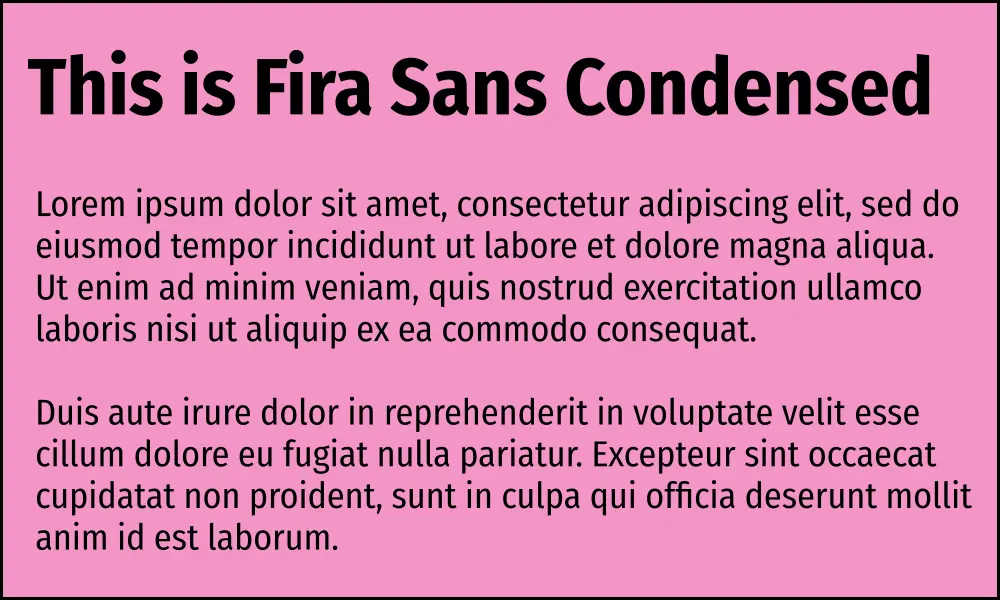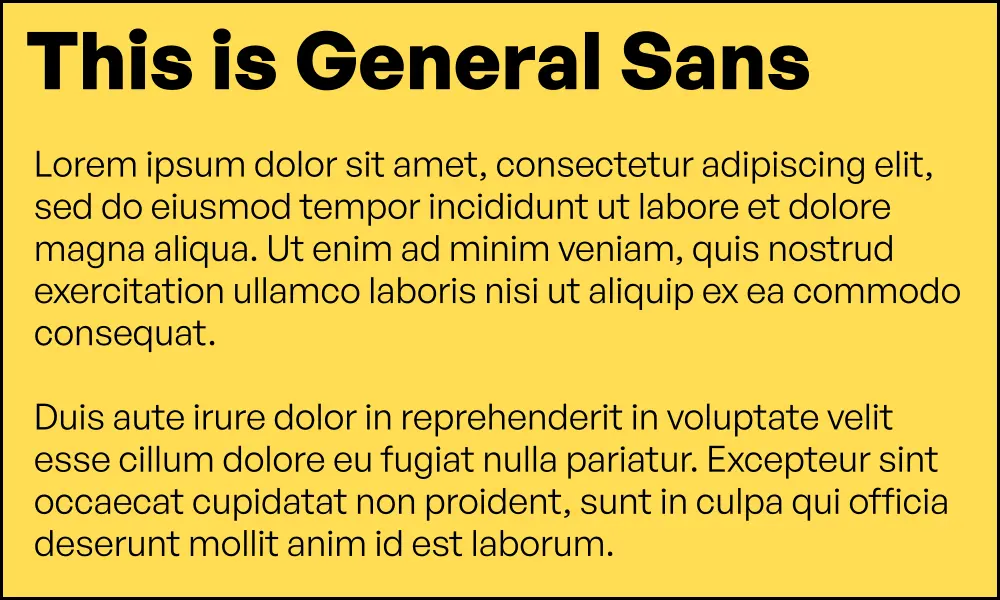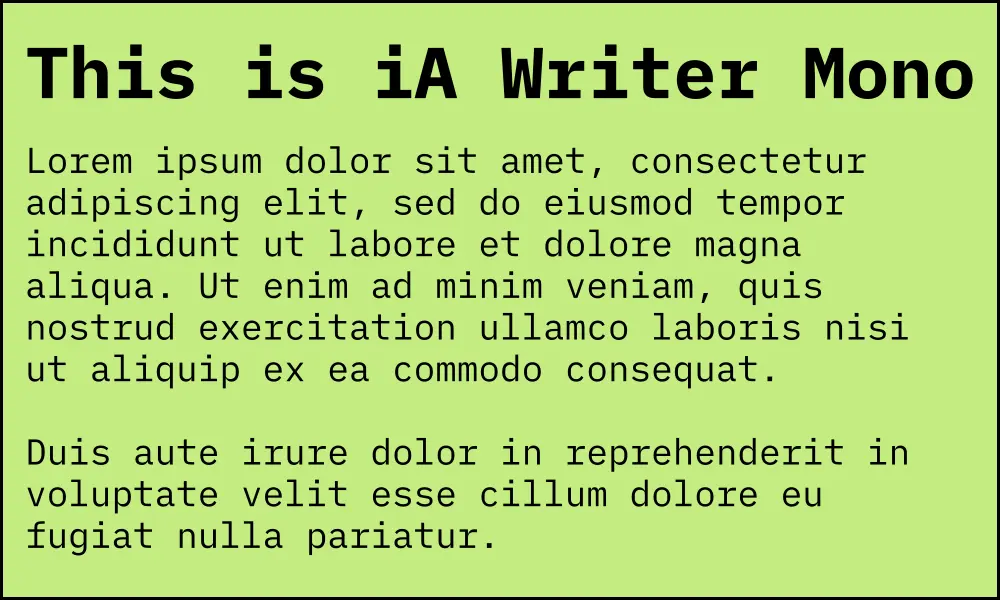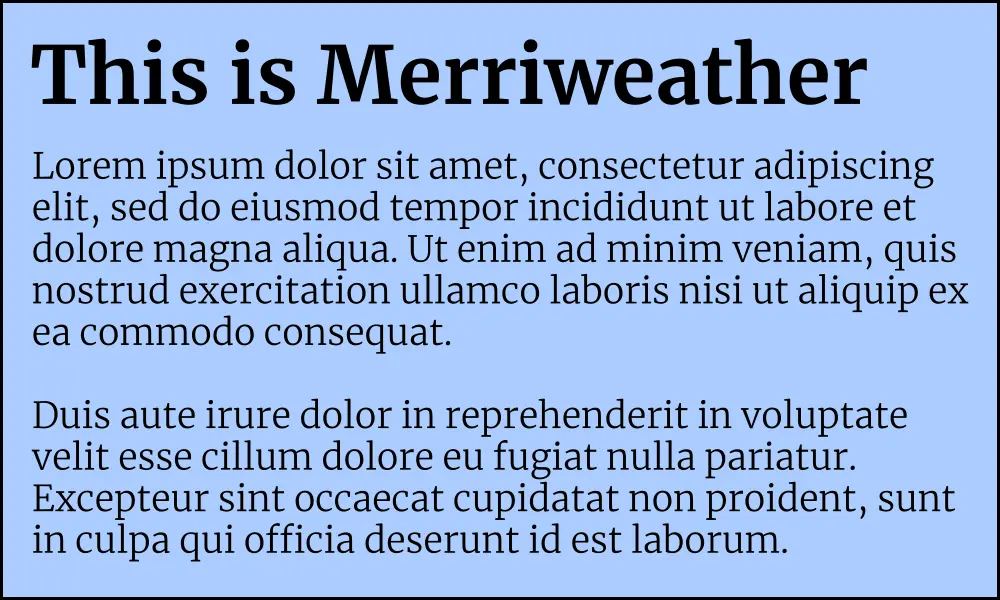
Some of My Favourite Fonts
Beautiful typography is something that's very important to me, I've even gone as so far as having my website torn apart by a professional typographer.
It's fair to say that fonts and copy is something that's near and dear to my heart, so when I saw this post from Matt, I decided it would be fun to share some of my own favourites.
General Sans
General Sans is the font I use on this site. It's very similar to Apple's system font, San Francisco. But it has a few little embellishments that the system font doesn't have.
If you want something that's similar to Helvetica, Inter, or San Francisco, but not as broadly used, you should check out General Sans.
Fira Sans Condensed
Fira Sans Condensed was created by Mozilla. Fira actually includes a whole suite of typefaces. There's a standard sans font, a monospace font, as well as [https://en.wikipedia.org/wiki/Fira_(typeface](https://en.wikipedia.org/wiki/Fira_(typeface) text: some others).
I used Fira Sans Condensed on this site before I switched to General Sans. It's a great font that gives a more formal feel than General Sans, I think. Super easy to read, but it's very broadly used.
Merriweather
Like Fira, Merriweather offers multiple typefaces, both in serif and sans-serif. I coupled the serif version of Merriweather on this site with Fira. So it was Fira for headers and Merriweather for body text.
Once again, Merriweather is very broadly used, but it's a beautiful font, so I understand why.
Merriweather and Fira go together really well. I personally used the light version of Merriweather, which is what's displayed in the example above.
iA Writer Mono
To complete the set of my favourite fonts, I'd be remiss if I didn't include a monospace typeface. So here's mine - iA Writer Mono.
I first discovered this font after the redesign that Andy Bell did on his site. He uses iA Writer Mono as the only font on his site, and it looks great. It's now the font I use on my code editor of choice, VSCodium.
Final thoughts
There's obviously tonnes of great fonts all over the internet, but these are just some of my favourites.